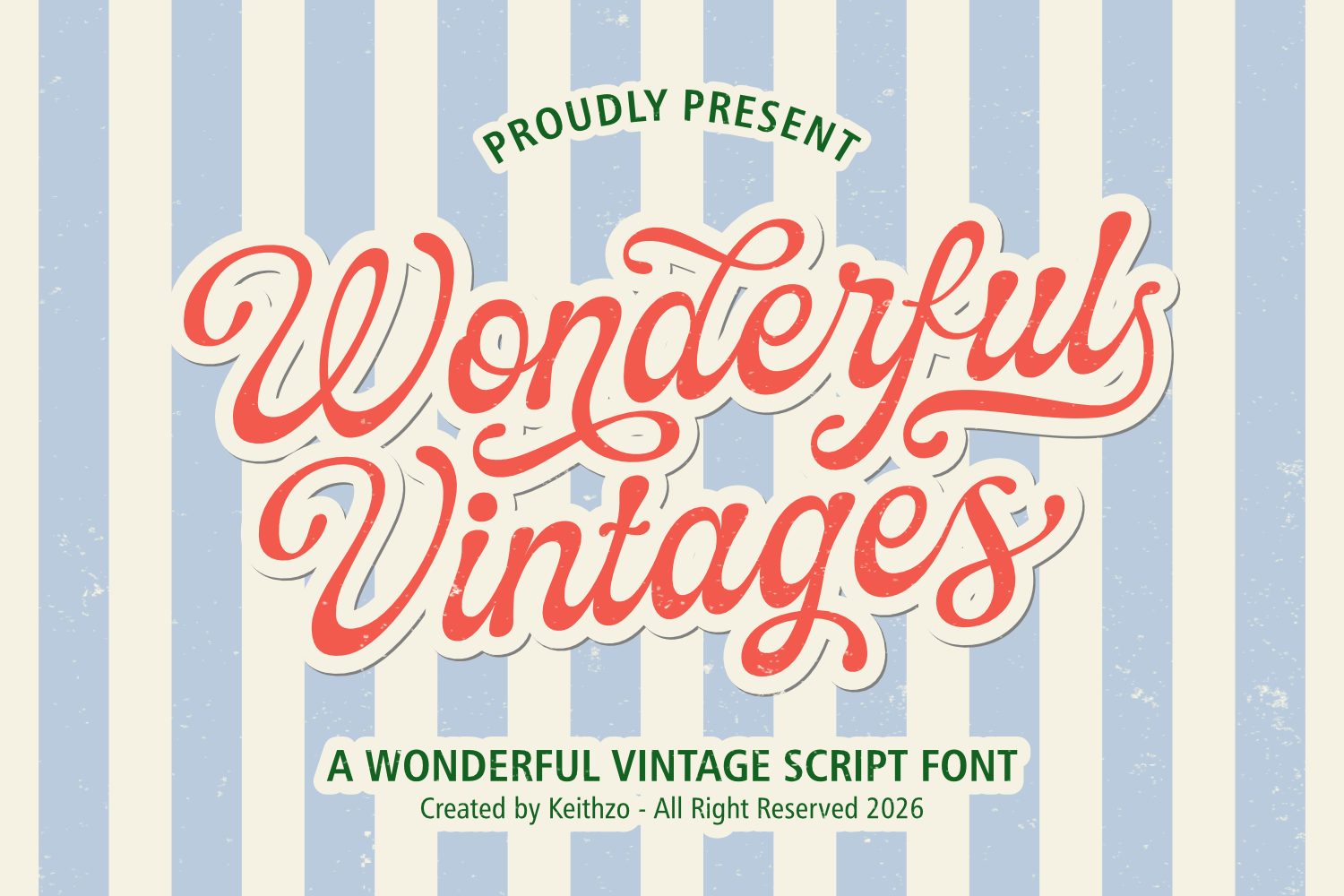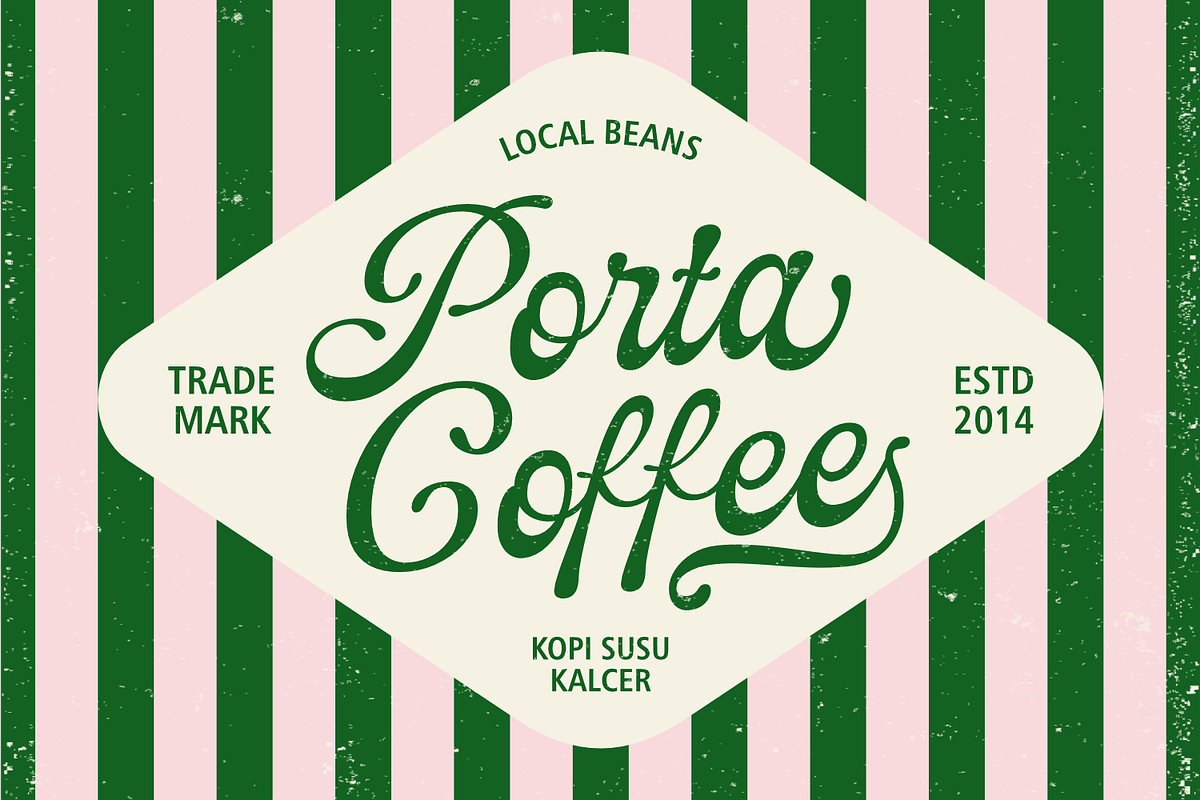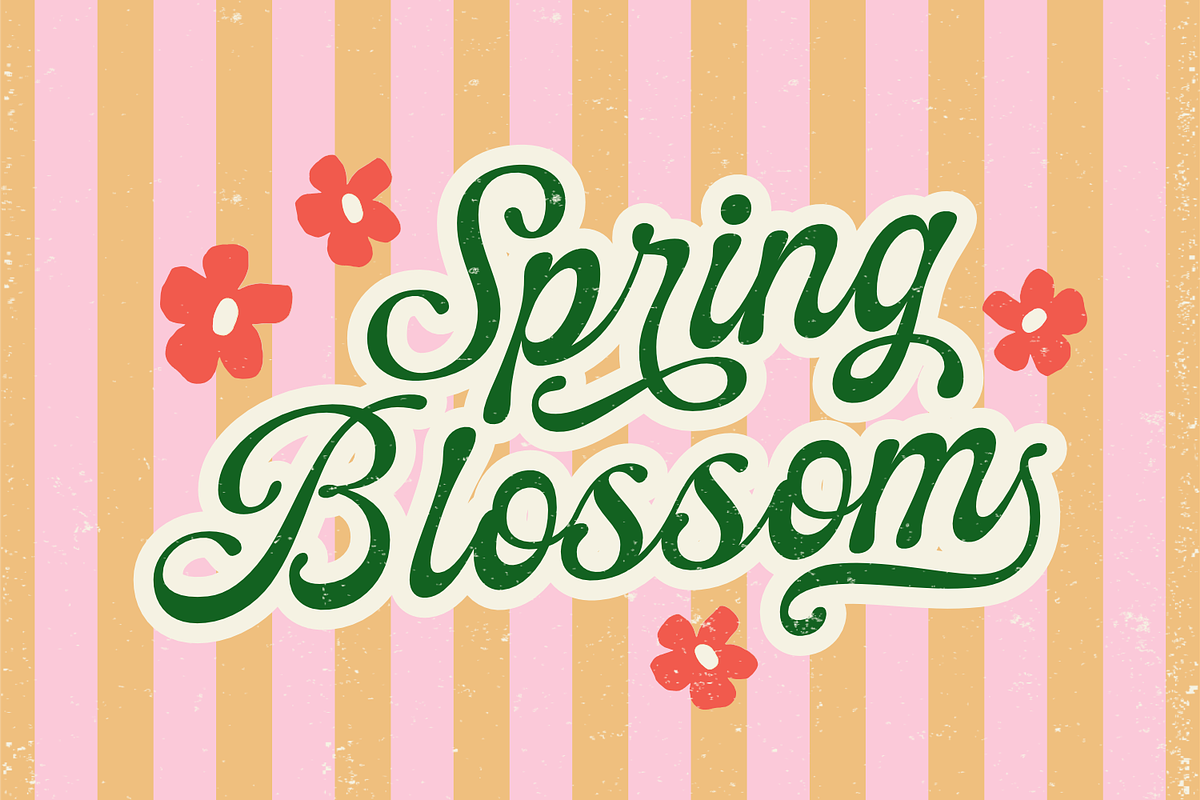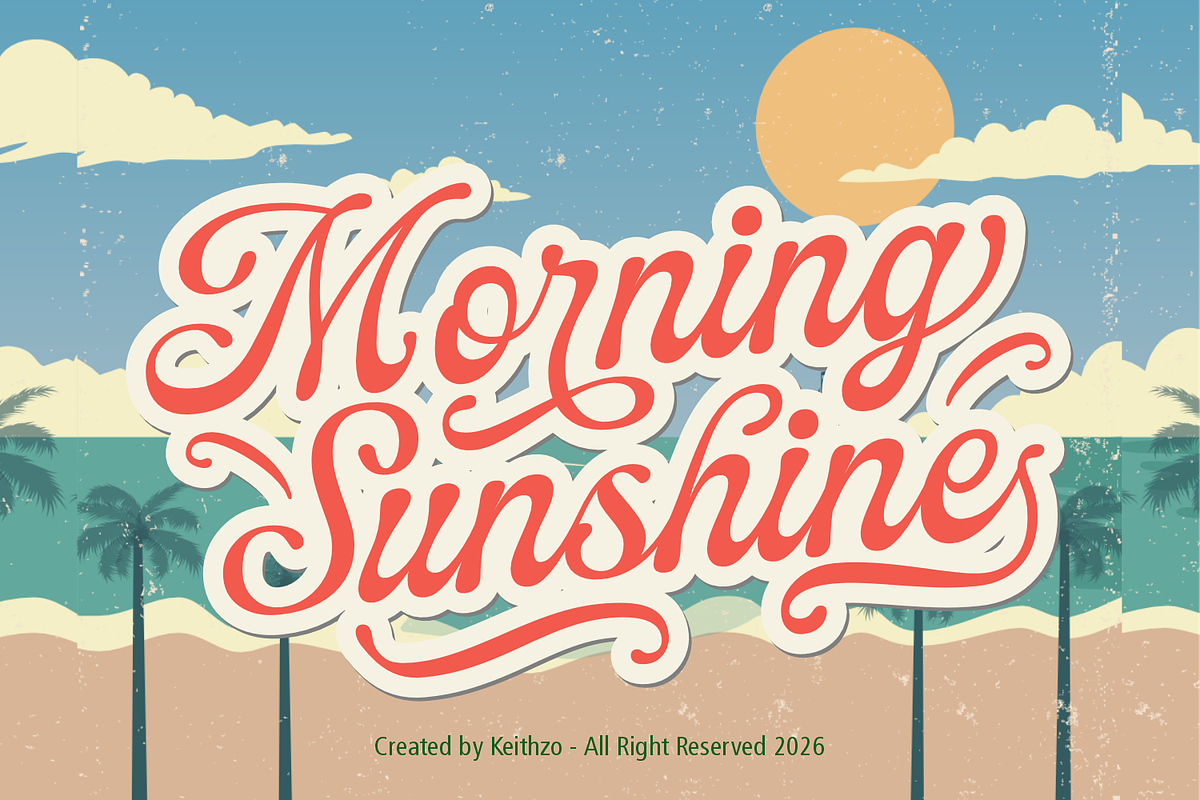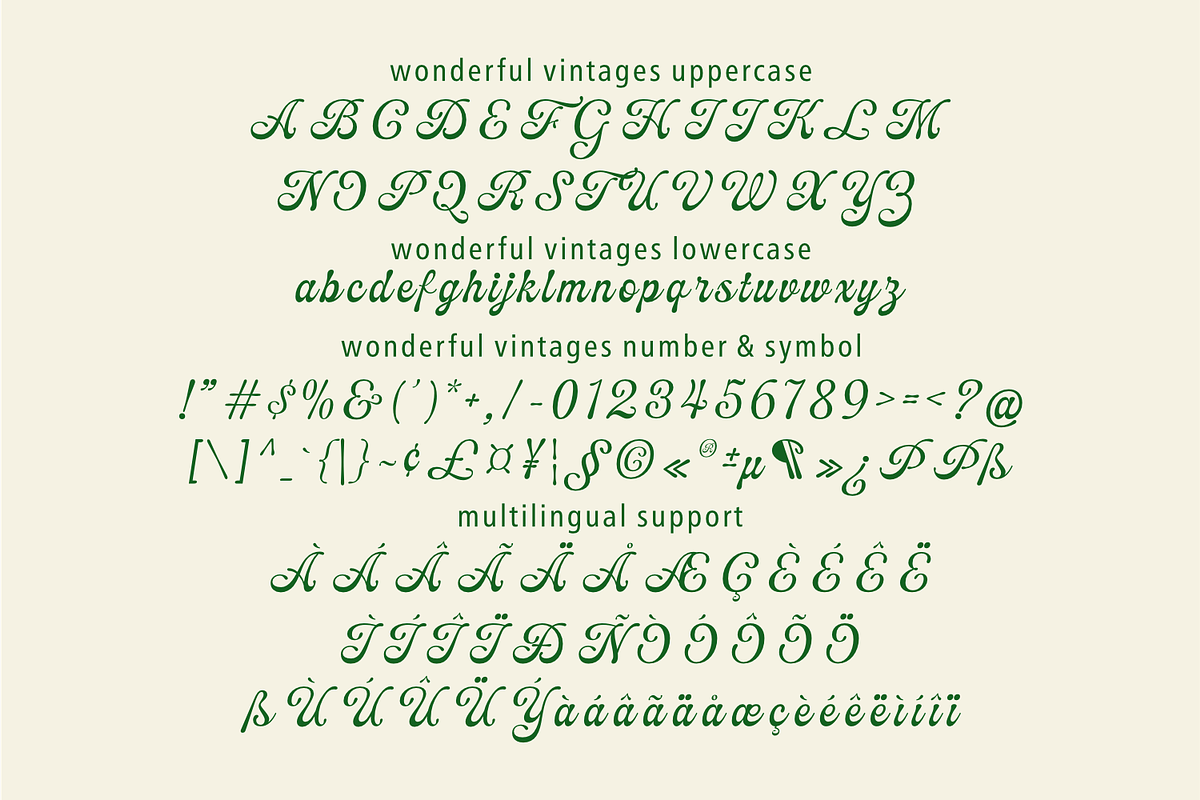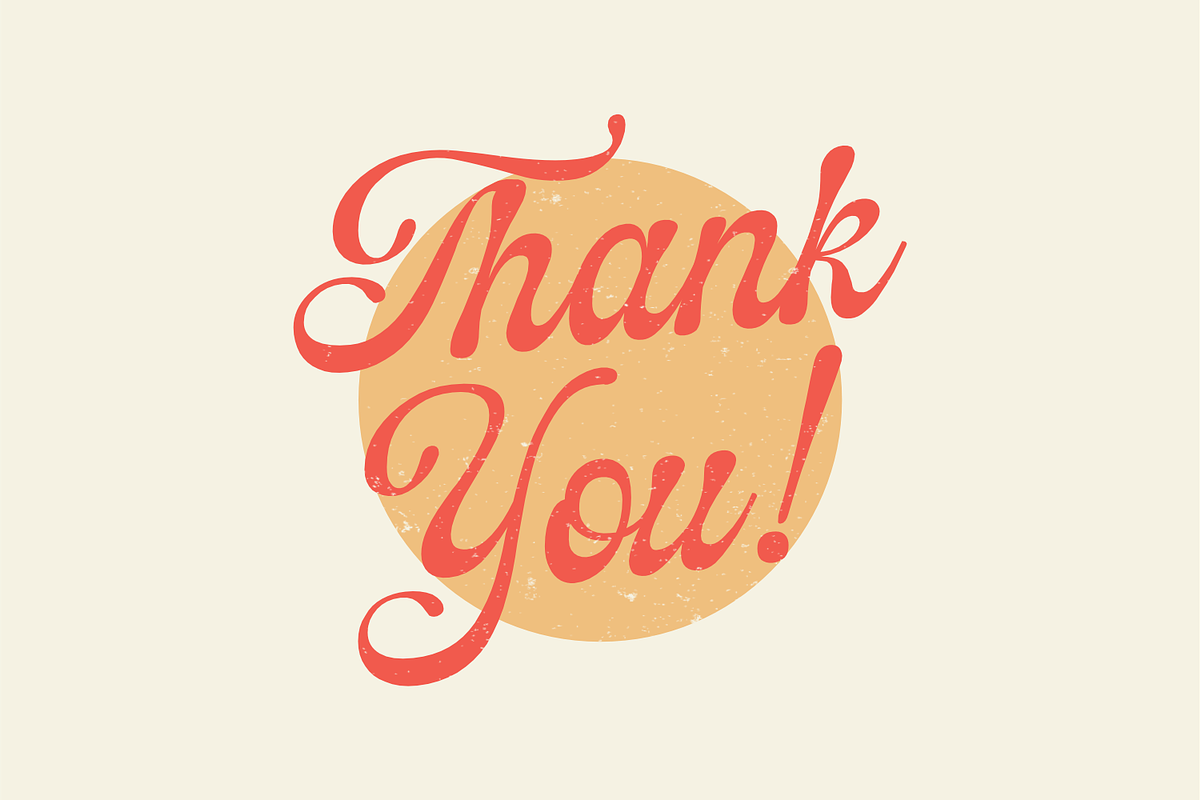
Wonderful Vintages - Retro Font
Experience the nostalgia of past decades with Wonderful Vintages, a vintage script font with a soulful personality and a tip of the hat to the classic appeal of retro typography. Evoking the atmospheric allure of the 1950s and 1960s signage, this stylized typeface blends the artistry of hand lettering with eloquent curves, adding an old-school charm to your digital designs.
Whether your aesthetic leans towards the evocative simplicity of vintage art or the unrestrained spirit of retro scripts, Wonderful Vintages delivers an impeccable fusion of sophistication and fun. Its polished, rhythmical strokes prove to be an excellent pick for vintage logos, traditional branding, classical packaging, or nostalgic social media content.
Immerse in the essential features of this Vintage Script font — it embodies the unique vintage style to its fullest, mirroring the golden era of classic typography. The broad character set comprises uppercase, lowercase, numerals, and symbols, each crafted with a distinctive vintage touch. Worry no more about language constraints; Wonderful Vintages comes equipped with extensive multilingual support, rendering it a choice selection for global projects. Its sleek retro lines are ideal for neat cutting with Cricut/Silhouette or creating high-grade, vintage print layouts.
Incorporate Wonderful Vintages font in your next creative assignment and let it be your ultimate storyteller. It is particularly suited for vintage apparel and T-shirt designs, classic café and coffee shop branding, traditional wedding invitation creation, vintage poster and label artistry, and nostalgic product packaging.
Let the Wonderful Vintages script transport you back in time, infusing an elegant touch of the past in your contemporary designs. Welcome aboard a journey down the memory lane with this vintage font, adding more than just typography — but a taste of the good old times — to your digital workspace.